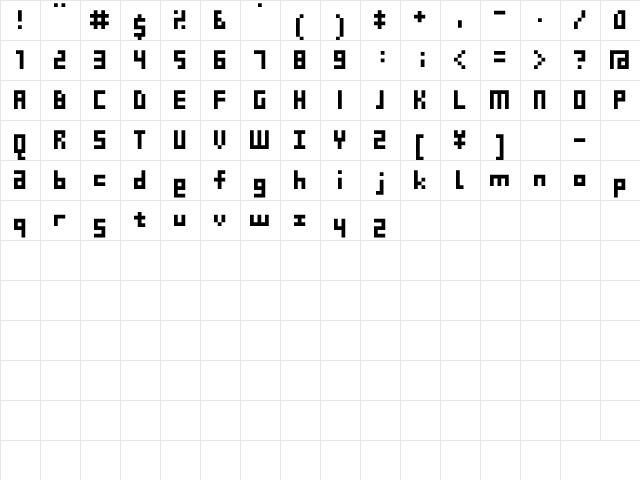
D3 Beatmapism Regular
Design Context for D3 Beatmapism Typeface
D3 Beatmapism is a composed and adaptable typeface that performs quietly and consistently across a wide range of design contexts.